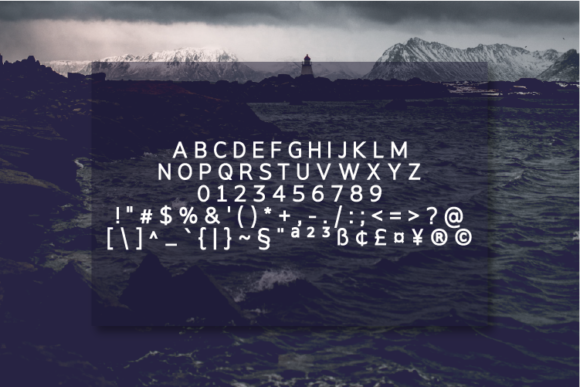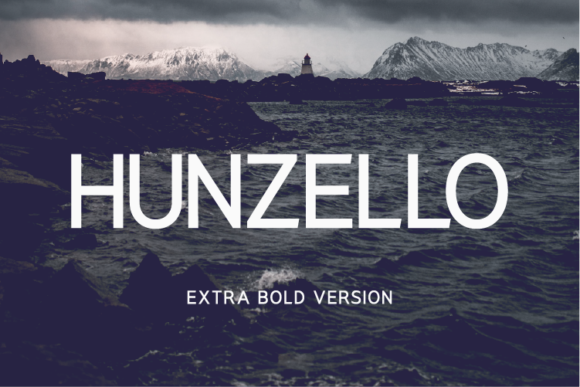
Introduction to Hunzello Extra Bold Font
Hunzello is a minimalist and modern sans serif font with an undeniably clean feel.
With its neat and beautiful arrangement of letters, this typeface will look outstanding in both formal and non-formal designs .
Key Features of Hunzello Extra Bold Font